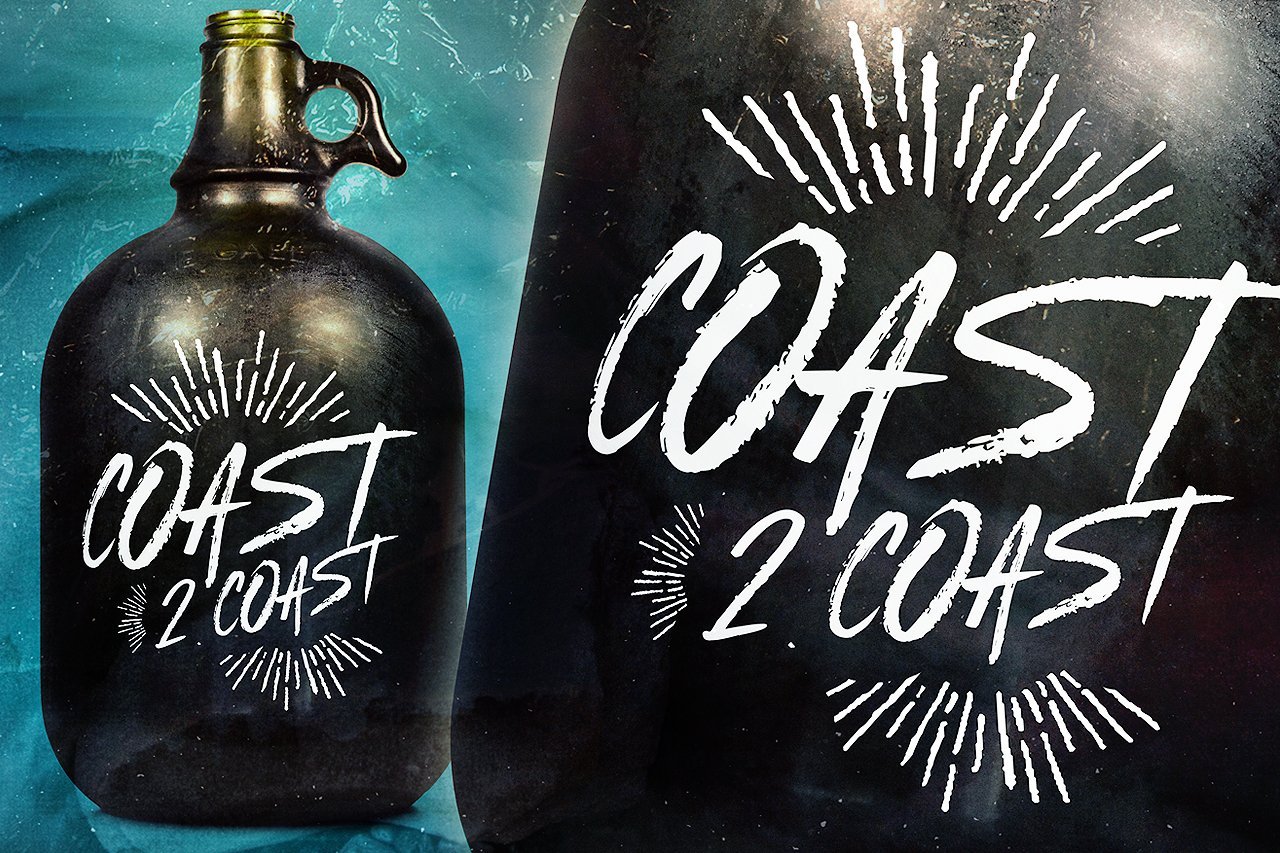
Get creative with Coast 2 Coast, from Layerform Design Co
Coast 2 Coast – Typeface
Introducing Coast 2 Coast by Layerform
Coast 2 Coast is a charismatic, handsketched typeface which is perfect for headline typographic pieces of work, with its rough edges, It’s the perfect choice for Type projects that you need to inject a little more personality into!